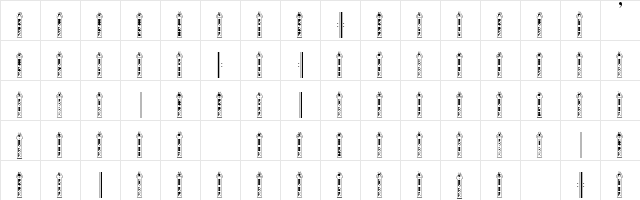
RecorderFaces Regular
Design Context for RecorderFaces Typeface
RecorderFaces is a composed and adaptable typeface that performs quietly and consistently across a wide range of design contexts.